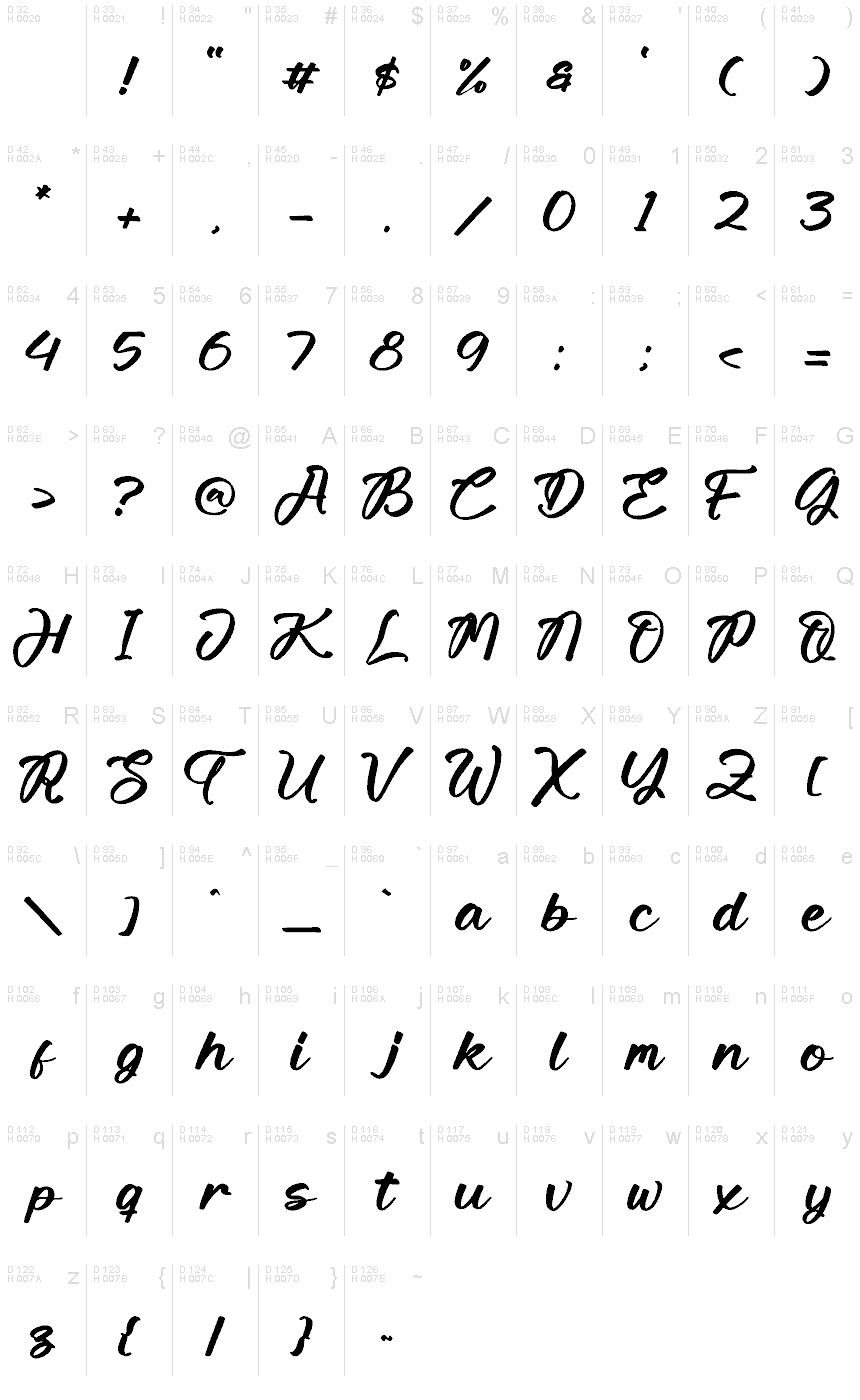
Homestay
Homestay font is a free handwritten font designed by Letterena Studios. Incorporating smooth flow, casual elegance, and a modern appeal, each letter surprises with its curves and lines, creating a beautiful visual experience. Playing between legibility and creativity, the font maintains both the simplicity of a professional typeface and an unquestionably authentic handwritten appearance to charm any reader.
Exhibit this expressive style with your invitation designs or create stunning magazine/ journal covers that reflect its modernity. Homestay can headline menus, movie posters or surprise viewers as it makes an appearance within social media posts or websites. Other uses also include ads, brochures, apparel items like shirts which all gain classiness when denoted using this free typeface!